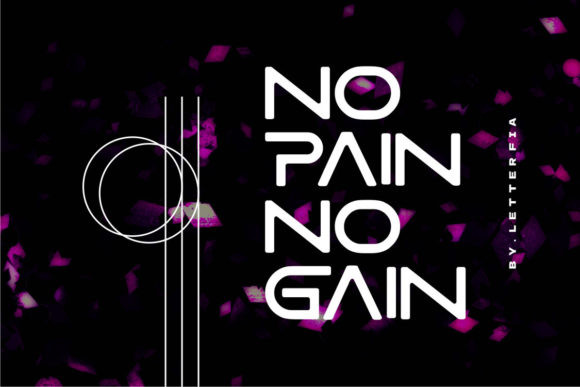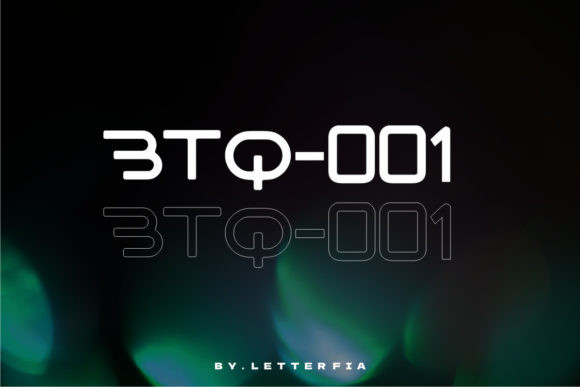
Zeotab Font
Zeotab is a futuristic and minimalist display font. This font is ideal for writing web designs, business cards, or pretty much anything else that requires a unique touch.